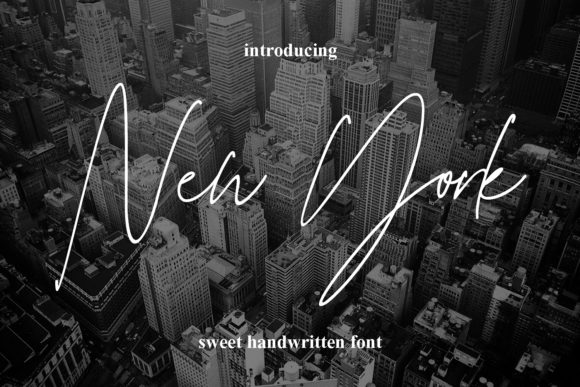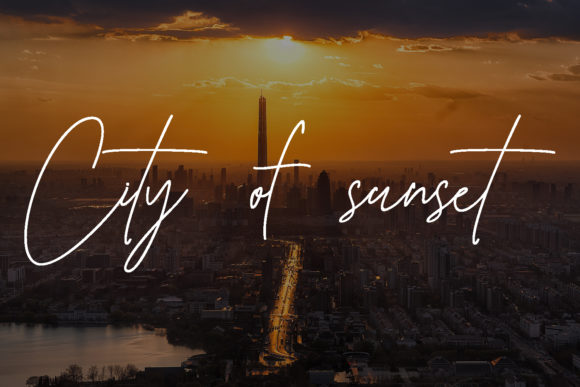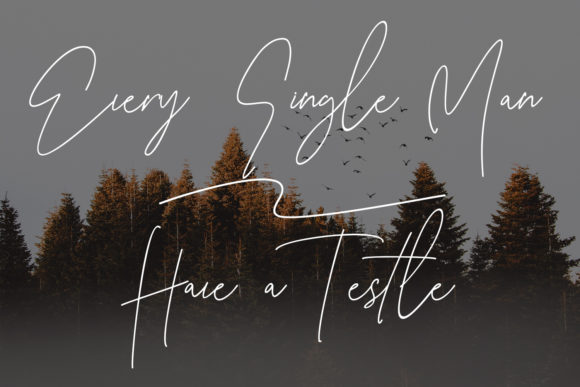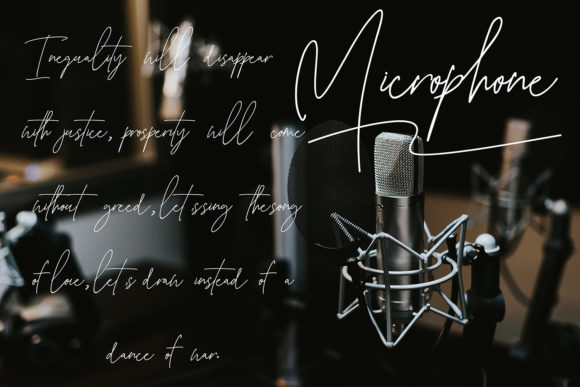
HomeScript FontsNew York Font Script Fonts New York Font FacebookXPinterestWhatsApp New York Font Poster 2 New York Font Poster 3 New York Font Poster 4 About New York Font New York is a romantic script font. It is perfect for logos, signatures, advertising and much more. DOWNLOAD NOW People also explored MFC Stencil Borders Three Christmas Wishes Font Columbia Stamp William Maria Font Donut Font Molluska Font Snowman Font Olimpic Font Dreamy Siberica Font 417 0 TagsNew York Font Previous articleLuminousity FontNext articleThe Padlock Font LEAVE A REPLY Cancel reply Comment: Please enter your comment! Name:* Please enter your name here Email:* You have entered an incorrect email address! Please enter your email address here Website: Save my name, email, and website in this browser for the next time I comment. Personal Use Free Helsinki Personal Use Free Read more about this font Mueband Personal Use Free Read more about this font Peachy Rose Personal Use Free Read more about this font Latifah Personal Use Free Read more about this font BLOG Best Fonts for YouTube Videos: Make Your Thumbnails Stand Out Best Fonts for YouTube Videos: Make Your Thumbnails Stand Out Choosing the right font can make a massive difference in how your YouTube videos perform.... Using Fonts in Digital Marketing: Tips to Strengthen Your Brand Identity Free vs Paid Fonts: Why Investing in Premium Fonts Is Worth It Where to Buy American Fonts Online in 2024